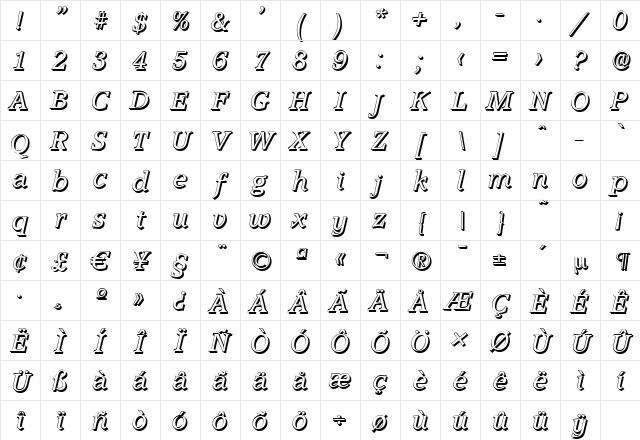
Complete AccoladeShadow Italic glyph index. Displaying only characters natively supported by AccoladeShadow Italic font.
AccoladeShadow is built around its visual character rather than neutral utility - its distinctive forms are designed to make an impression at display sizes. The slanted form adds forward momentum and visual energy.
Font Pairing: Pair with a clean neutral sans-serif for body copy to let AccoladeShadow's character lead without overwhelming the composition.
Pro Tip: Use AccoladeShadow exclusively at display sizes - it was designed to be seen, not read at length. Let a neutral companion handle body copy.